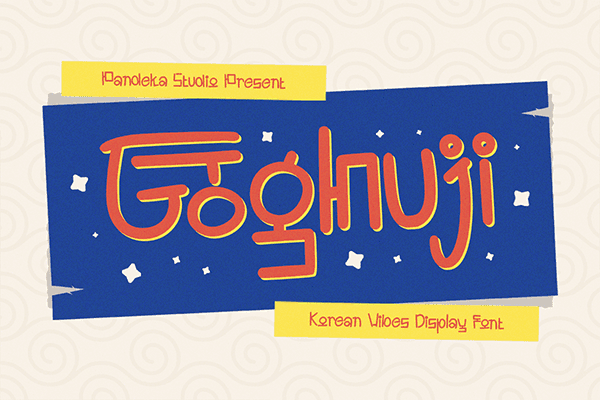
Goghuji – Display Font
Goghuji – Display Font is here! It combines traditional Korean calligraphy with a modern aesthetic, creating a bold and stylish display font. Perfect for branding, posters, packaging, apparel, and cultural designs, this unique typeface brings an authentic and trendy touch to any project.